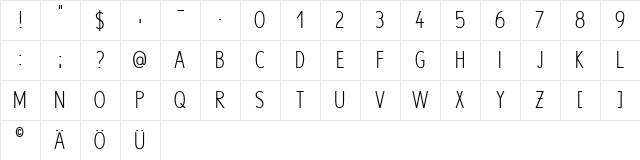
HYPE Regular
Foundry: nils merkel
Design Context for HYPE
HYPE is a composed and adaptable typeface that performs quietly and consistently across a wide range of design contexts.